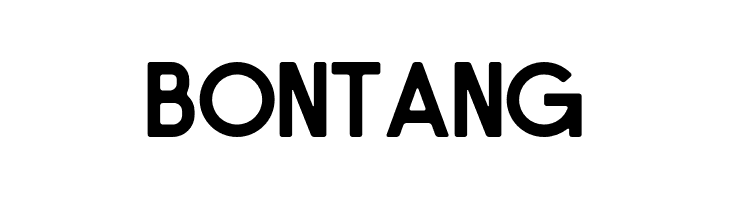
A modern, rounded sans-serif font with a clean and friendly appearance.
A fluid, handwritten-style font with elegant, connected letters.
A bold, modern sans-serif font with a clean and impactful design.
A graceful and fluid script font with elegant, flowing cursive letters.
An elegant script font with intricate swirls and artistic flourishes.
An elegant and flowing script font with intricate swirls and loops.
A graceful and elegant script font with flowing, cursive strokes.
An elegant script font with flowing, cursive strokes and sophisticated flourishes.
An elegant, flowing script font with a natural handwritten style.
A bold, cursive font with elegant, interconnected characters and dramatic flourishes.
A bold, expressive script font with sweeping curves and high contrast.
A bold, flowing script font with a modern and elegant style.
A bold, cursive script font with high contrast and fluid strokes.
A modern, rounded font with a clean and approachable design.
A bold, high-contrast serif font with dramatic strokes and elegant serifs.
A delicate, flowing handwritten font with elegant and whimsical strokes.
An elegant script font with flowing, interconnected letters and graceful curves.
A bold, decorative font with elegant swirls and modern flair.
A bold, decorative font with ornate uppercase and strong lowercase characters.
A playful, bold font with thick, rounded characters and a whimsical style.
A playful, handwritten font with dynamic strokes and a whimsical style.
A playful, handwritten script font with tall, narrow letters and whimsical strokes.
A monoline signature font with a fluid, handwritten style.
A bold, decorative font with sharp, angular edges and a gothic flair.
A thorny, decorative font with a rebellious and edgy style.
A modern, geometric font with bold, slightly condensed characters.
An elegant script font with graceful, flowing lines and a sophisticated style.
A bold, brush-style font with an energetic and handcrafted appearance.
A playful and elegant script font with a handwritten style.
A modern, geometric font with narrow, angular characters and a futuristic style.